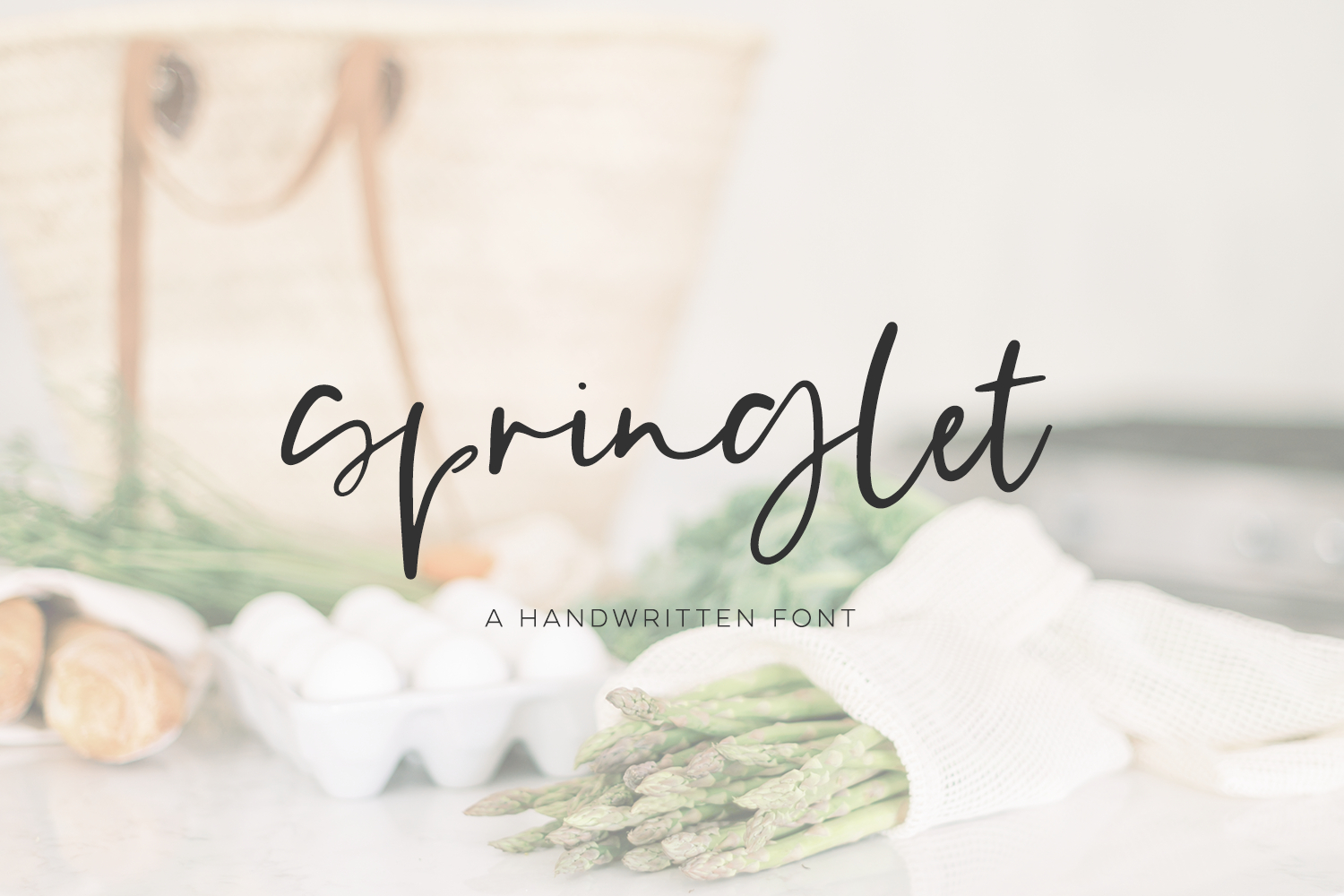
Say hello to Springlet Script, a handwritten signature style script. Springlet mimics handwriting, with the perfect amount of imperfection, and a bit of feminine attitude.
Springlet Script is best for:
- modern logos + branding
- website design + website accents - think design blogs, travel blogs, fashion blogs, & more
- 26 lowercase alternates